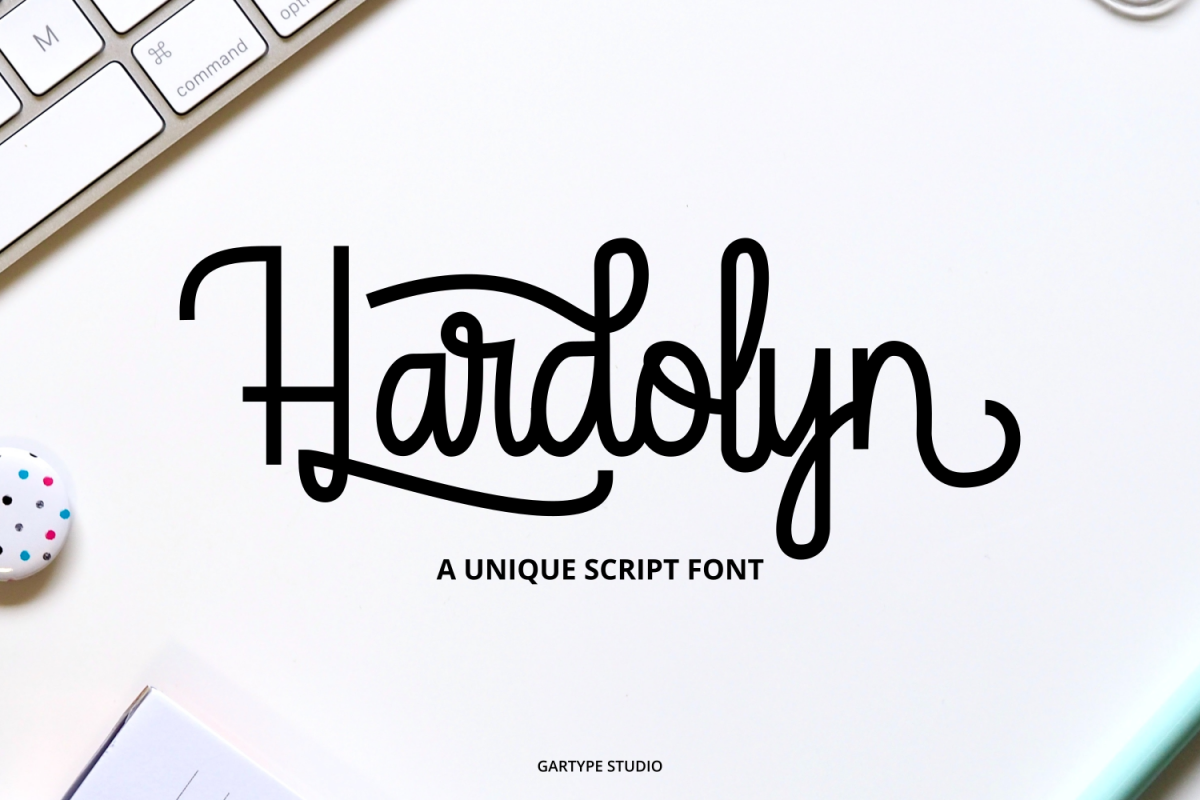
Hardolyn - A Unique Script Font
Hardolyn-Regular
Hello Creative people! As time goes by, seeing development of script fonts is very growing, we are trying to make a new and certainly unique script font ! And this is Hardolyn ! a unique script font from us. Hardolyn is suitable for your needs such as quote, invitation, advertising, logo, posters, headline, web headline, clothes, and many more.
Not only that, Hardolyn also comes with up to 7 alternate glyphs ! for lowercase and total of glyphs is more than 350 glyphs! which will make your needs more attractive! Hardolyn also has multilingual features, and support many language : Afrikaans, Albanian, Danish, German, Icelandic, Italian, Norwegian, and more !.
• More than 350 glyphs (Include Uppercase,Lowercase,Numeral&Punctuations,Ligature)